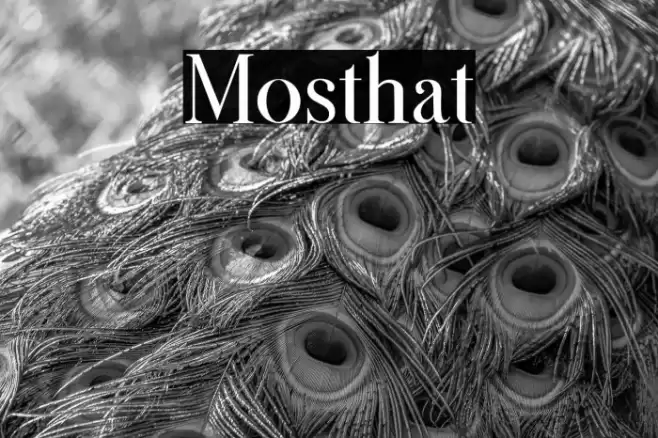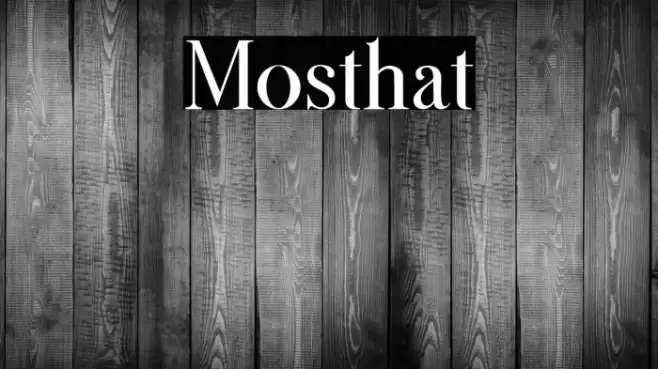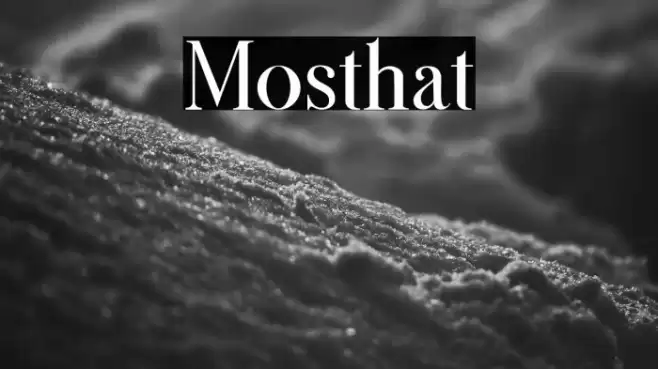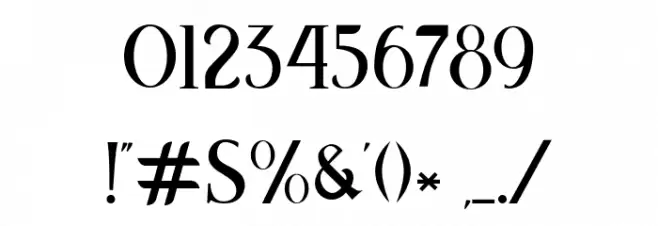
Mosthat Font
Mosthat Description
This font features a classic serif style with elegant and refined strokes. The uppercase letters are bold and commanding, with distinct serifs that add a touch of sophistication. The lowercase letters maintain a consistent style, offering a harmonious blend with the uppercase. Numbers are clear and easily readable, making them suitable for various applications. Special characters are designed with the same attention to detail, ensuring they complement the overall aesthetic. The font's high contrast in stroke thickness enhances its readability and visual appeal, making it ideal for formal and professional settings.
A classic serif font with elegant strokes and high contrast, perfect for formal use from Regular fonts.
- Proposed Projects: Ideal for book covers, formal invitations, branding, and editorial design.
- Overall Style: Classic